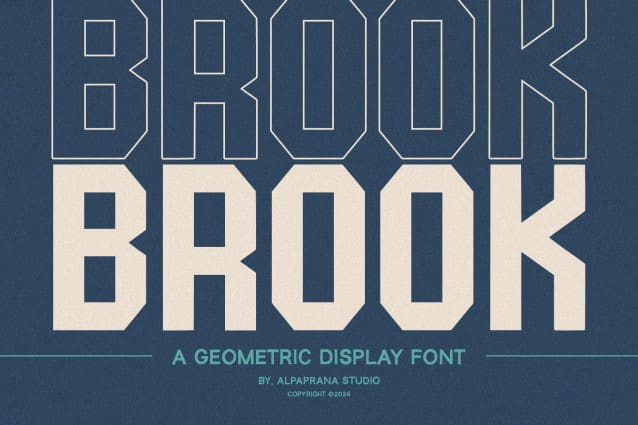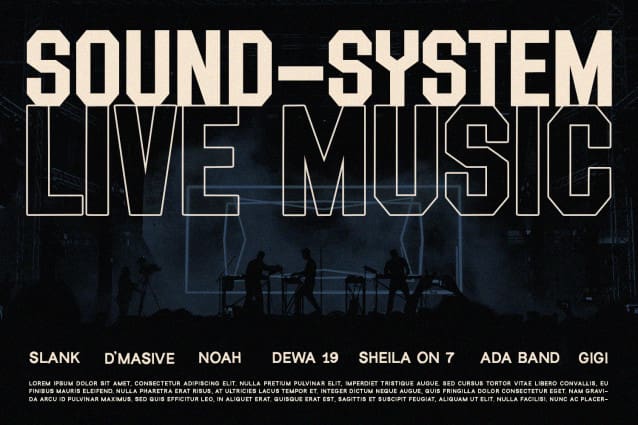
Brook Display Font
Brook Display Font is a geometric display font with unique and modern feels. It will be perfectly used for Branding, Logo Design, Lettering, Logotype, Clothing, Poster, magazine, packaging, posters, shopping bags, t-shirts, book covers, photography, special events and other design project.